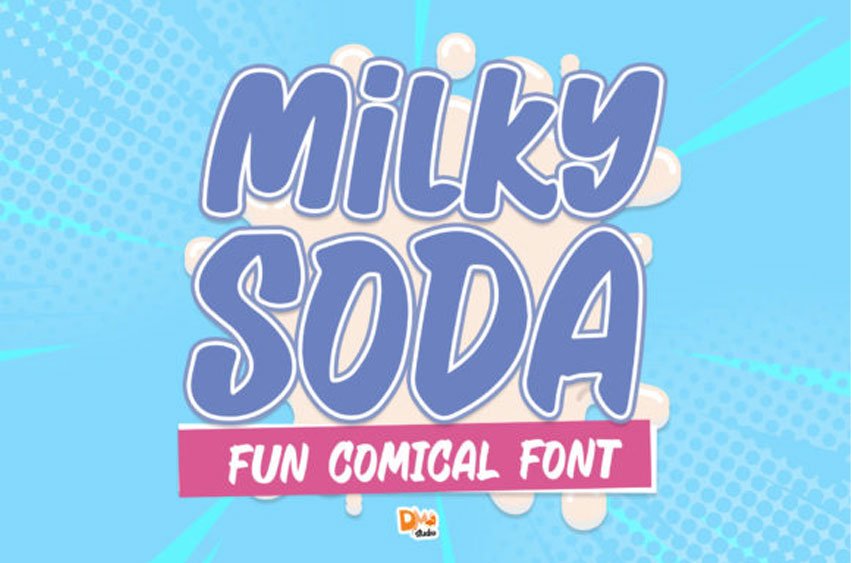
Milky Soda Font is a cool, paint brushed display font.
It embodies playfulness and authenticity and is the perfect choice for any children activity or school project.